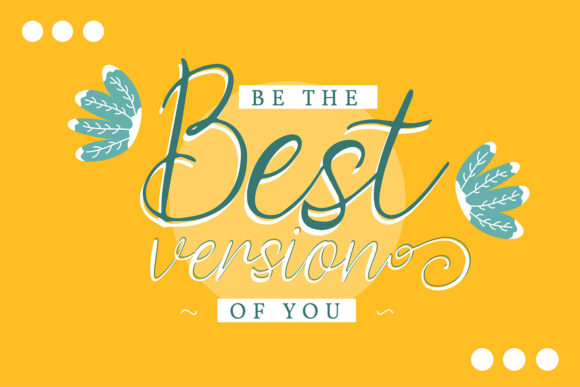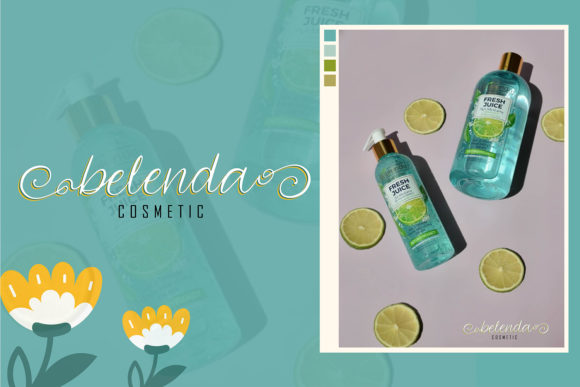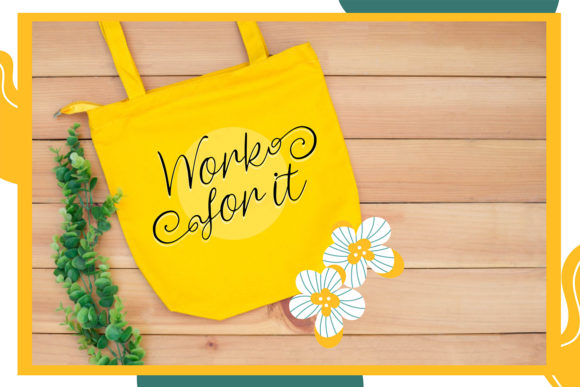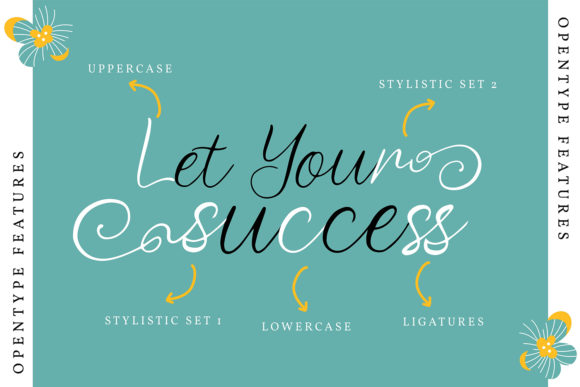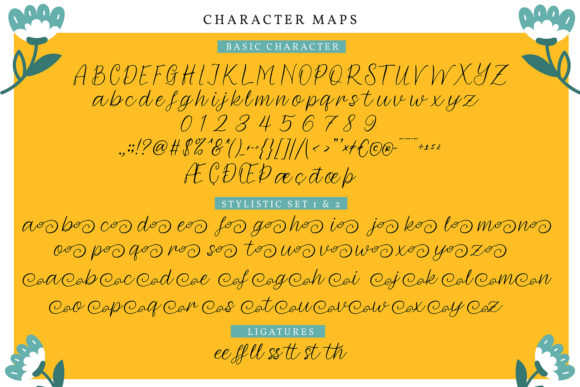
Introducing Ellayra Font: The Ultimate Cursive Handwritten Font for Creative Projects
Are you a designer, crafter, or DIY enthusiast looking for a font that can add a touch of warmth and personality to your projects? Look no further than Ellayra Font, a beautiful cursive and well-rounded handwritten font that’s perfect for creating stunning works of art. In this article, we’ll explore the features and benefits of Ellayra Font, and show you how to make the most of this gorgeous font in your creative projects.
What is Ellayra Font?
Ellayra Font is a carefully crafted cursive and handwritten font that’s designed to bring a sense of warmth, romance, and joy to your projects. With its smooth and flowing lines, Ellayra Font is perfect for creating beautiful and eye-catching designs that are sure to capture attention. Whether you’re working on a branding project, a craft tutorial, or a personal DIY project, Ellayra Font is the perfect choice for adding a touch of personality and style.
Key Features of Ellayra Font
So, what makes Ellayra Font so special? Here are just a few of its key features:
- Cursive and handwritten style: Ellayra Font features a beautiful cursive and handwritten style that’s perfect for creating flowing and elegant designs.
- Warm and romantic feel: With its smooth and rounded lines, Ellayra Font has a warm and romantic feel that’s perfect for creating designs that are sentimental and emotional.
- Endless variations: Ellayra Font is incredibly versatile, with endless variations to explore and experiment with. Whether you’re looking for a bold and dramatic look or a soft and subtle one, Ellayra Font has got you covered.
How to Use Ellayra Font in Your Projects
So, how can you use Ellayra Font in your projects? Here are a few ideas to get you started:
- Branding and logos: Use Ellayra Font to create a beautiful and memorable logo for your brand or business.
- Craft tutorials: Add a touch of personality and style to your craft tutorials with Ellayra Font, perfect for creating eye-catching titles and headings.
- DIY projects: Use Ellayra Font to add a personal touch to your DIY projects, from scrapbooking to card making.
- Social media graphics: Create stunning social media graphics with Ellayra Font, perfect for sharing on Instagram, Facebook, and more.
Tips and Tricks for Getting the Most out of Ellayra Font
Here are a few tips and tricks for getting the most out of Ellayra Font:
- Experiment with different colors: Try pairing Ellayra Font with different colors and textures to create unique and eye-catching designs.
- Play with font sizes: Experiment with different font sizes to create visual interest and hierarchy in your designs.
- Add embellishments: Add embellishments like glitter, flowers, or other graphics to give your designs an extra touch of personality.
In conclusion, Ellayra Font is a beautiful and versatile cursive handwritten font that’s perfect for designers, crafters, and DIY enthusiasts. With its warm and romantic feel, endless variations, and ease of use, Ellayra Font is the perfect choice for adding a touch of personality and style to your projects. So why wait? Download Ellayra Font today and start creating stunning works of art that are sure to capture attention!
Whether you’re a seasoned designer or a crafty beginner, Ellayra Font is sure to inspire your creativity and take your projects to the next level. So go ahead, have fun with Ellayra Font, and explore its endless variations – we can’t wait to see what you create!